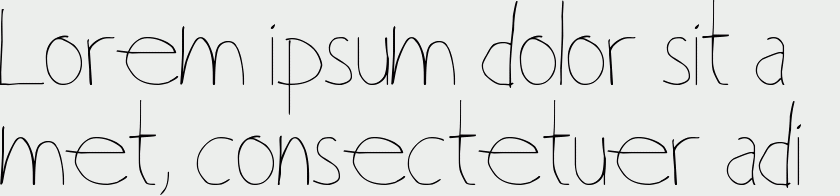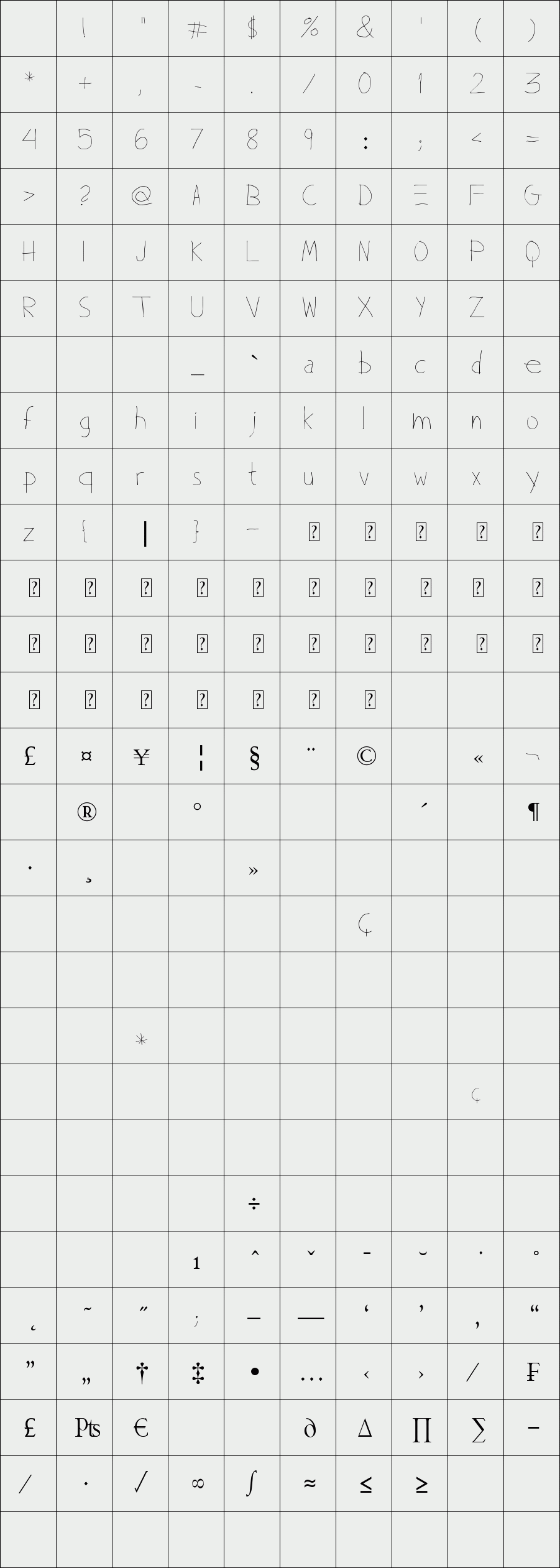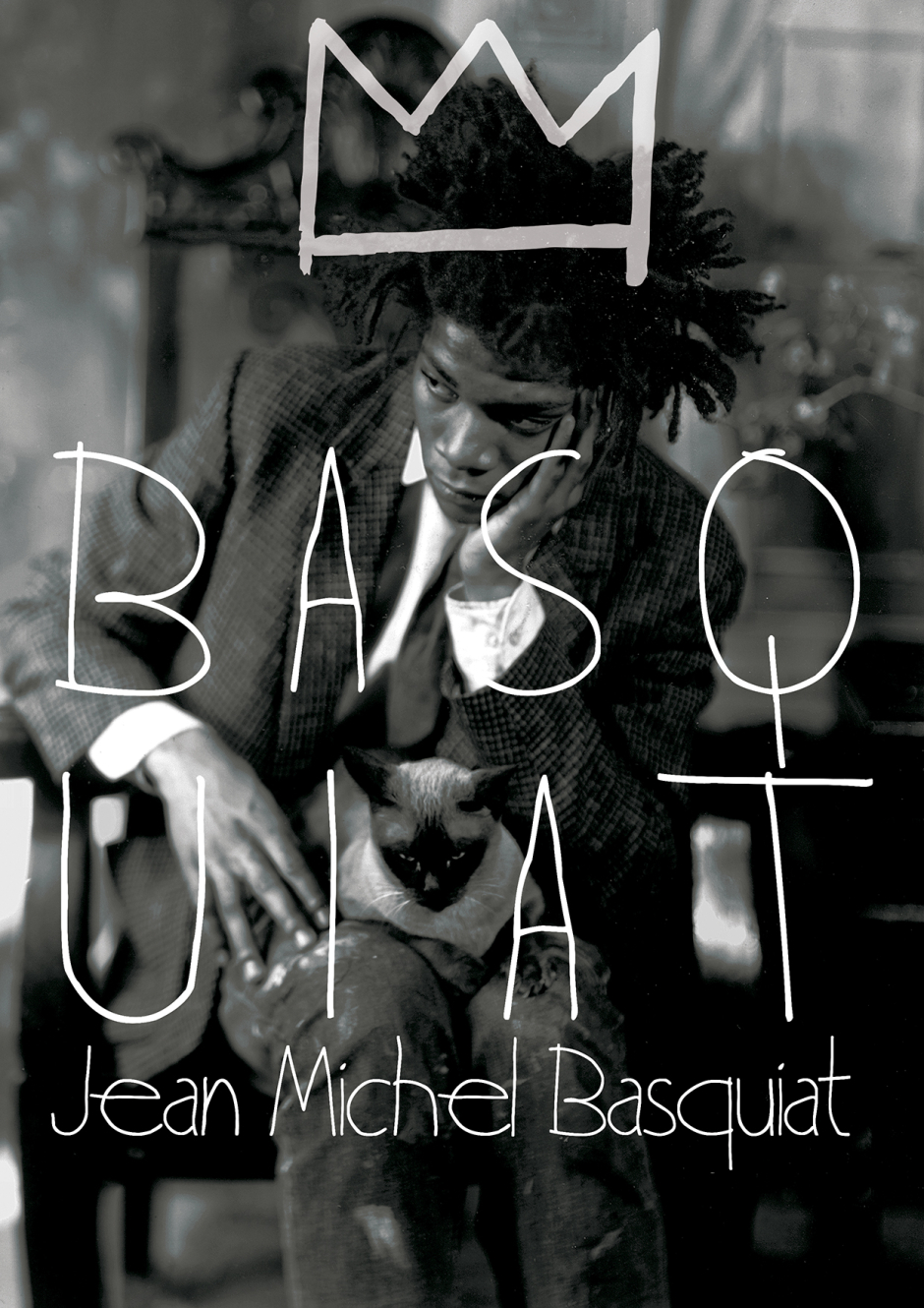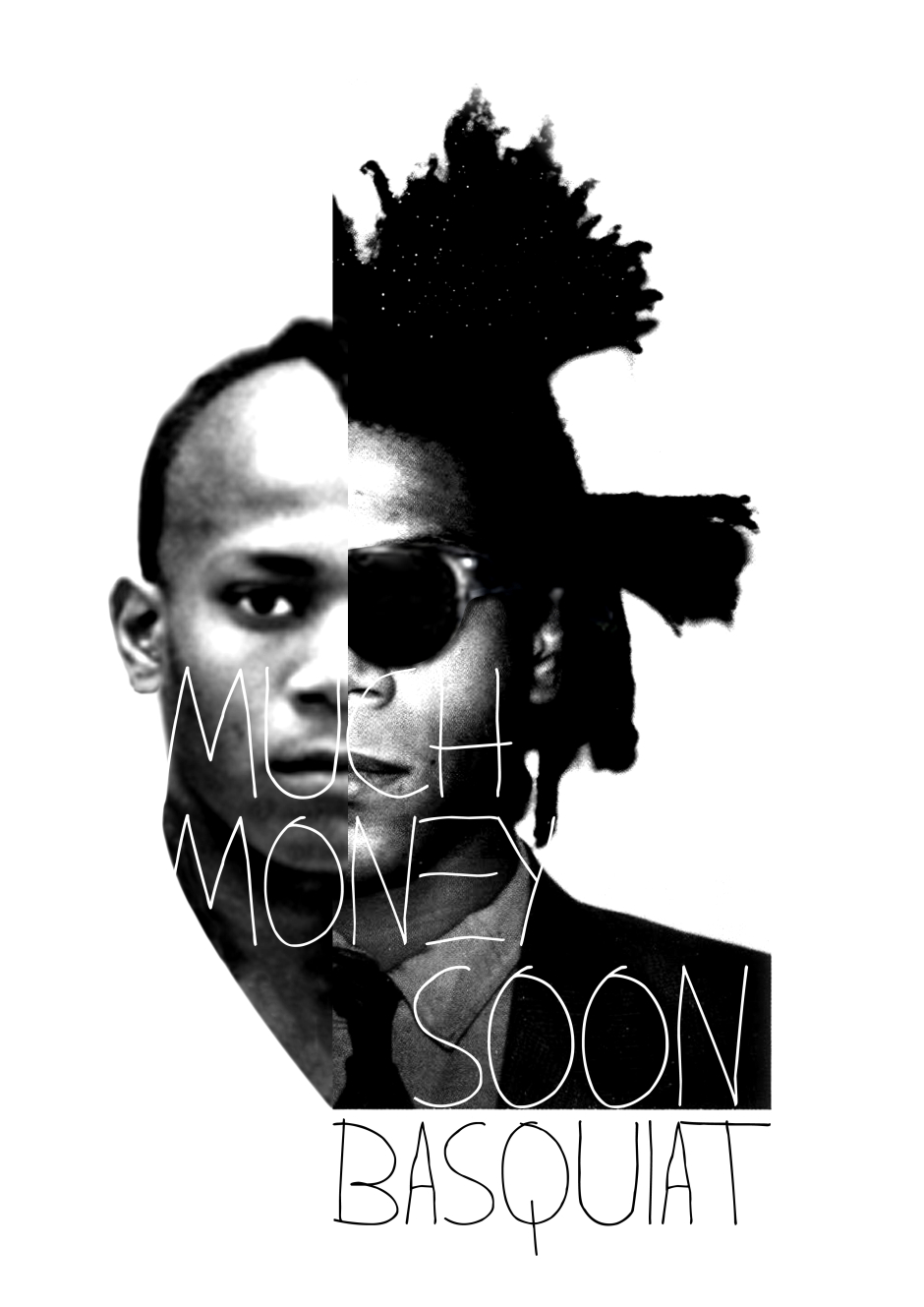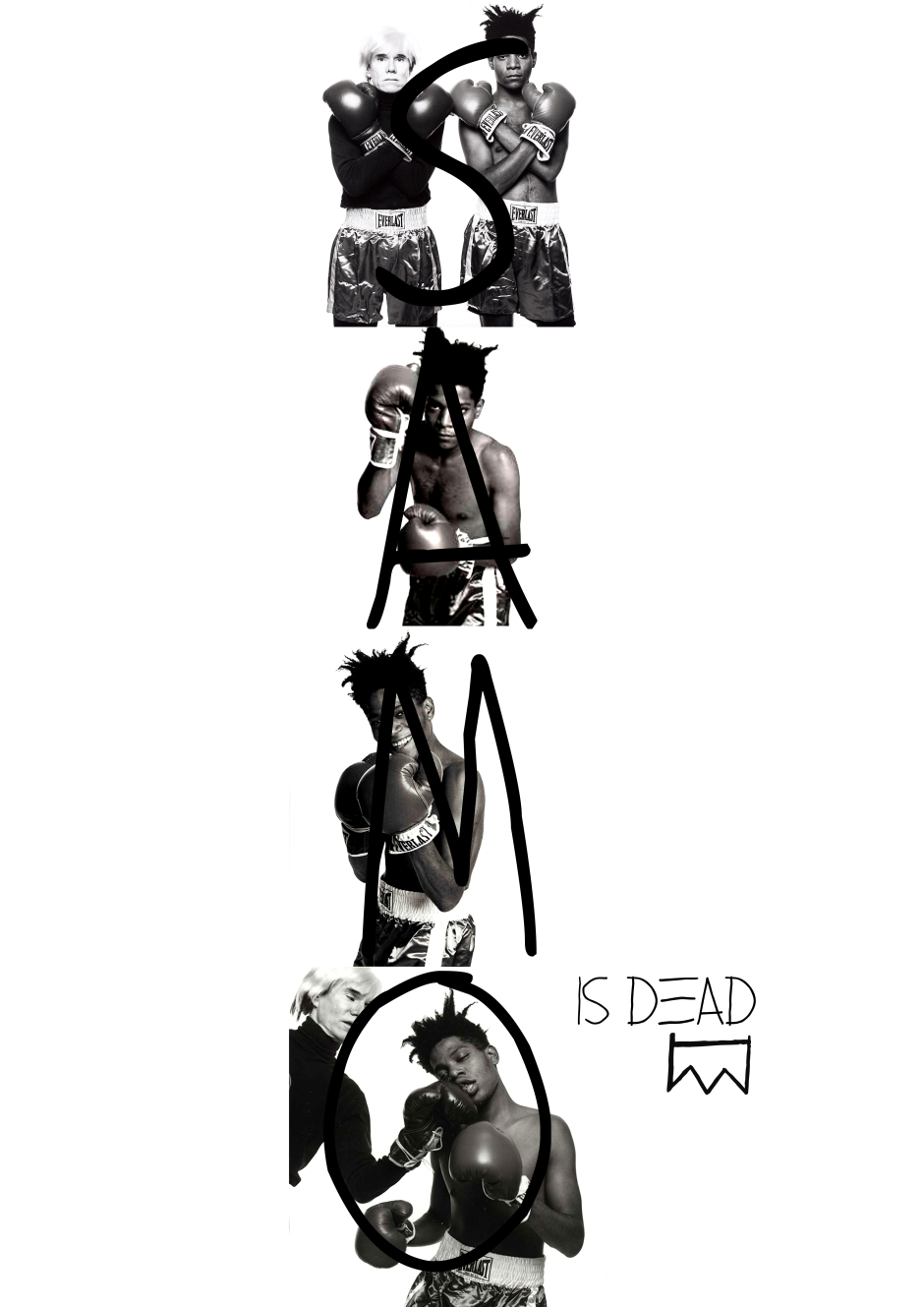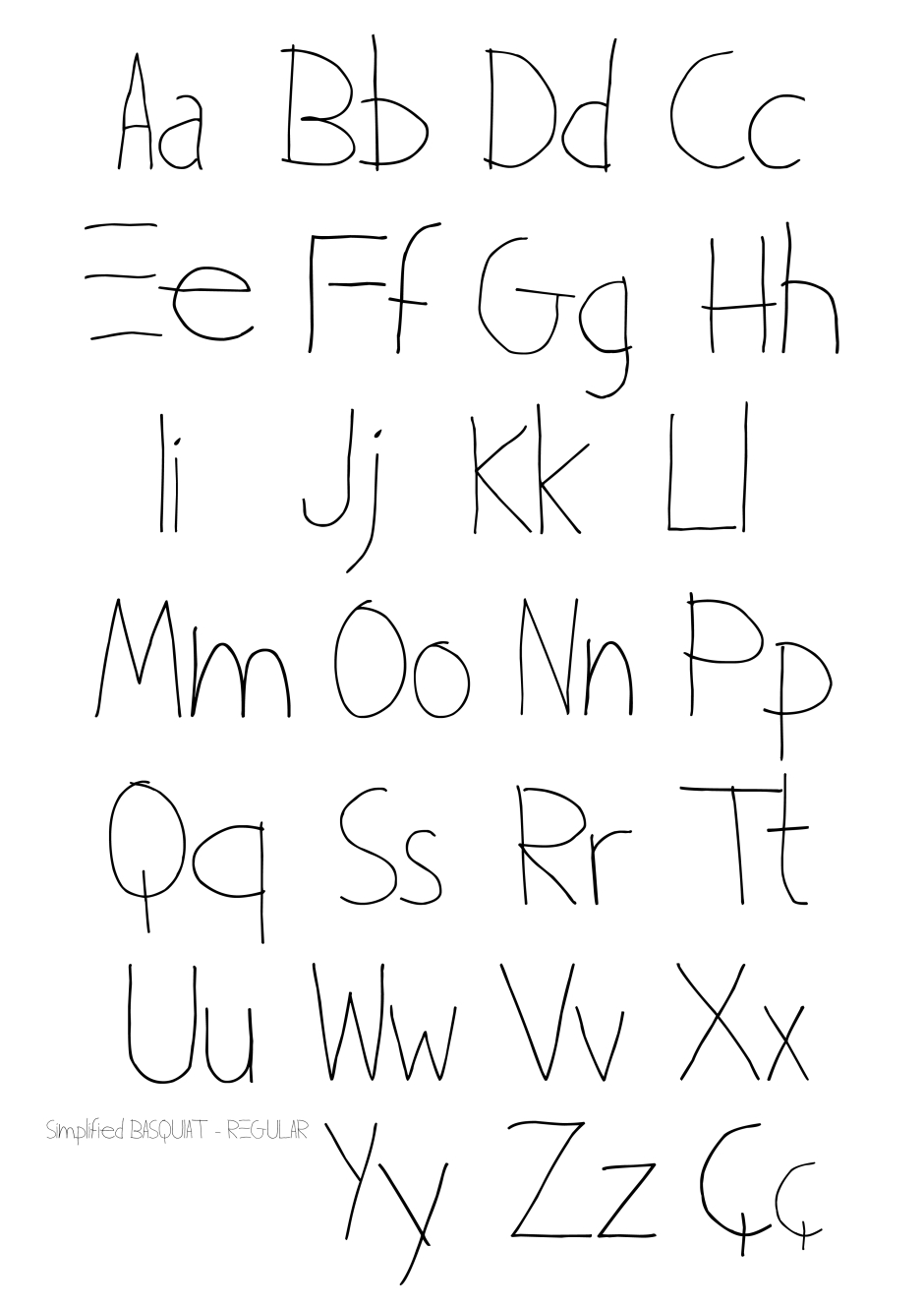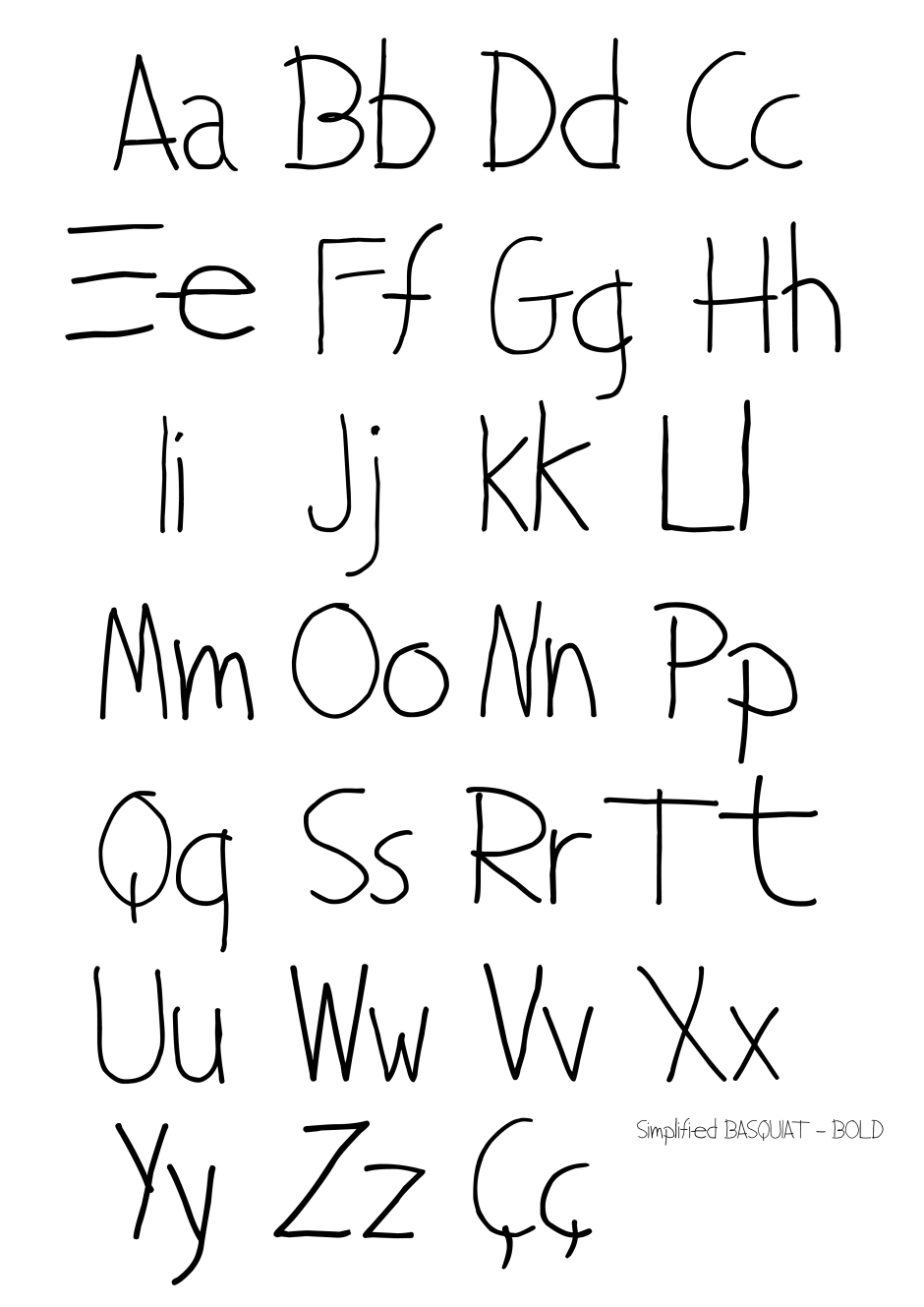
Simplified Basquiat
/ Simplified Basquiat - Regular
the source was pensanda in order to represent the plastic artist Basquiat , seeking representation faithfully to their works